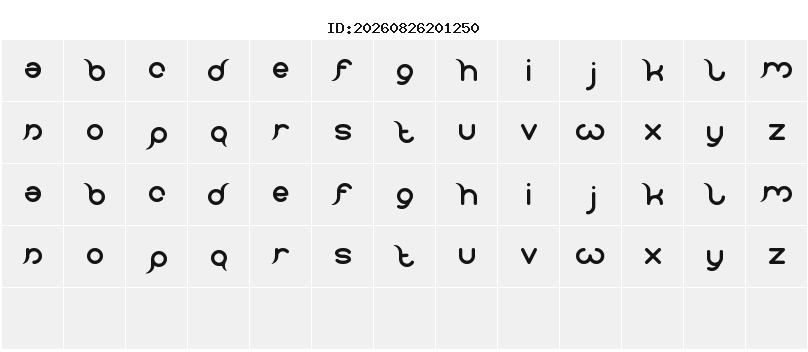
• Font Name: frankenstein monster
About frankenstein monster.ttf
frankenstein monster.ttf is a modern, elegant sans-serif font designed for ultimate readability and visual harmony. Perfect for branding, headlines, web design, and print materials.